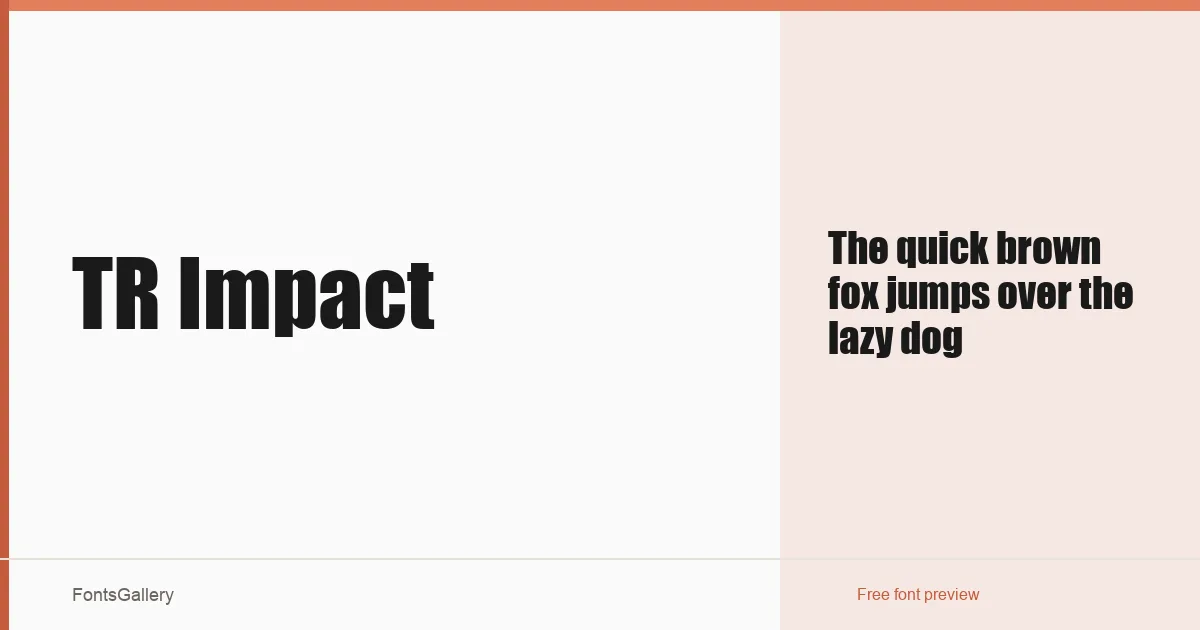
About TR Impact Font
TR Impact is a bold, modern sans serif typeface designed to command attention and make a strong visual statement. Its powerful presence and professional character make it a compelling choice for projects that demand impact and clarity. This typeface carries a confident energy that translates effectively across a wide range of design contexts.
As a sans serif font rooted in bold, modern aesthetics, TR Impact features strong, assertive letterforms with clean lines and a professional structure that exudes authority. The typeface's weight and geometry give it a commanding visual weight, ensuring legibility and dominance even at large display sizes. Its contemporary styling strikes a balance between striking visual impact and polished professionalism.
TR Impact excels in high-visibility applications such as logos, posters, advertisements, headlines, and T-shirt designs where bold typography needs to grab attention instantly. Its strong character makes it especially well-suited for branding and promotional materials that require a memorable typographic presence. For a cohesive typographic combination, consider pairing TR Impact with Aresink or Ballmain to create dynamic and visually engaging layouts.